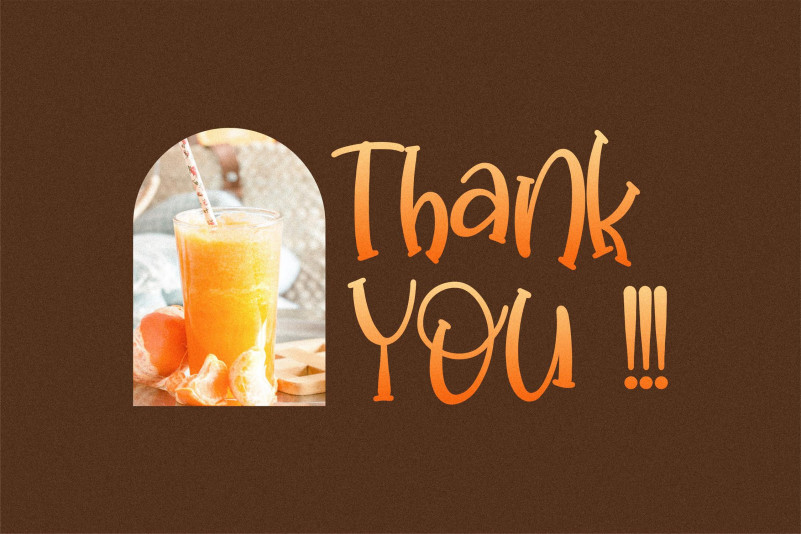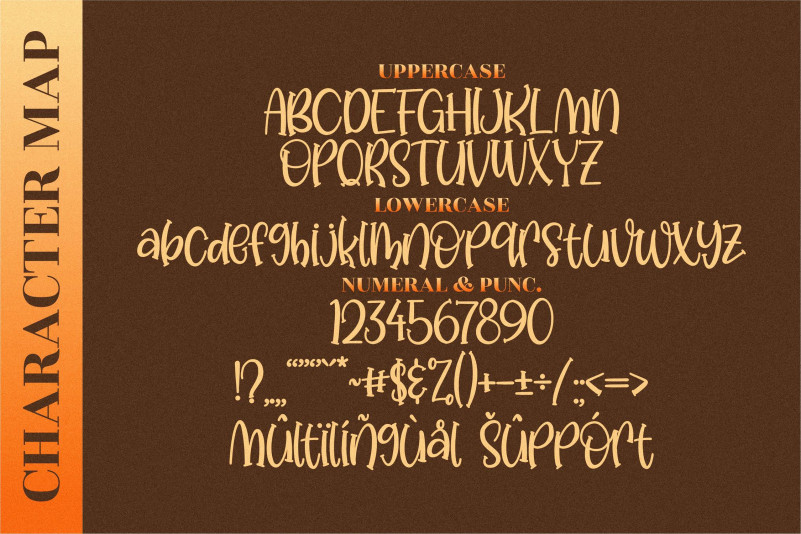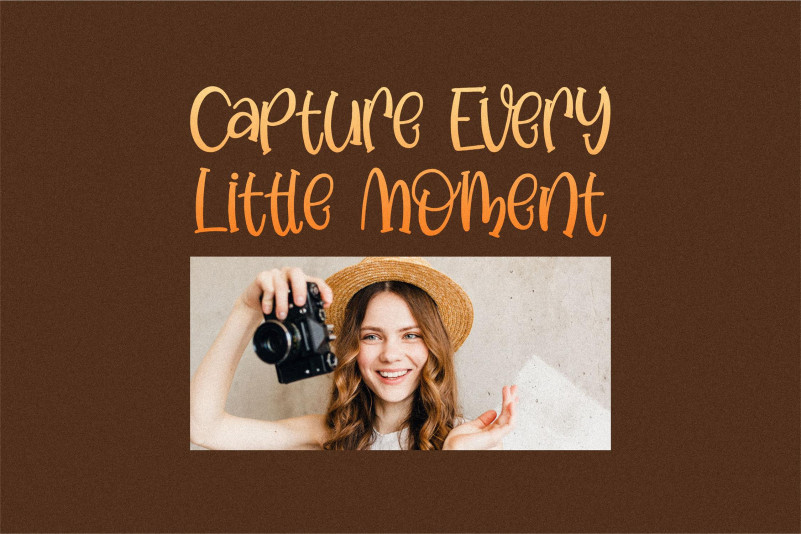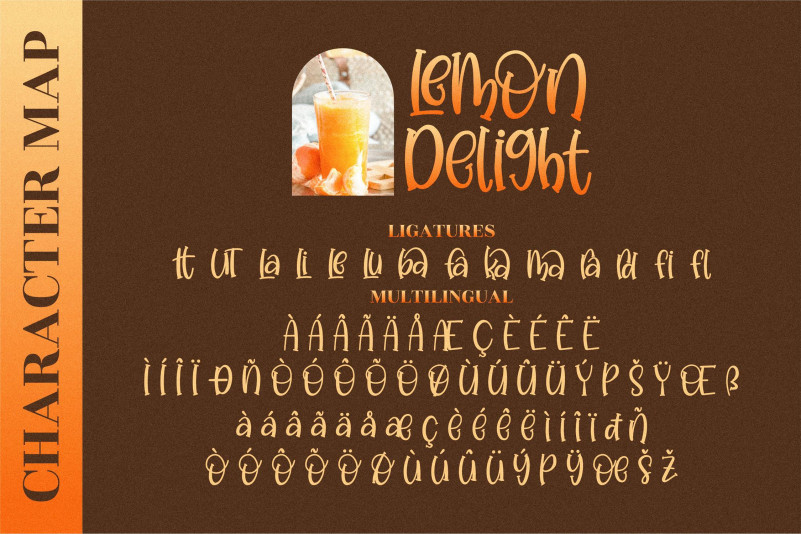
Lemon Delight Font
Lemon Delight Display Font
This is a natural and quirky handwritten font. It can be used for various design ideas, especially those that require a casual, friendly touch. Fall in love with its incredibly versatile style and use it to create spectacular designs!